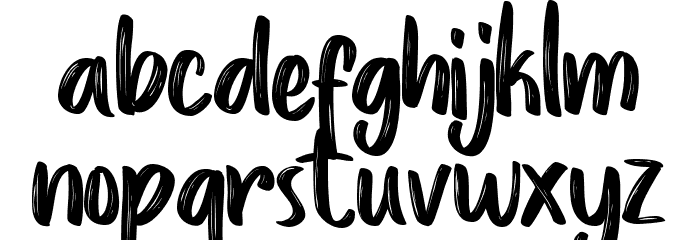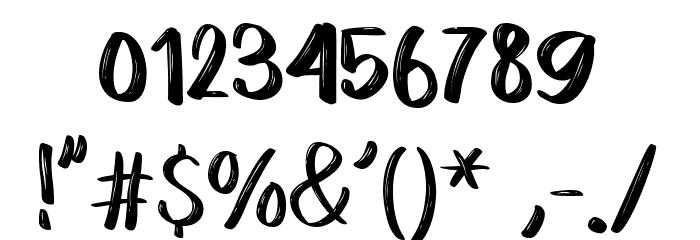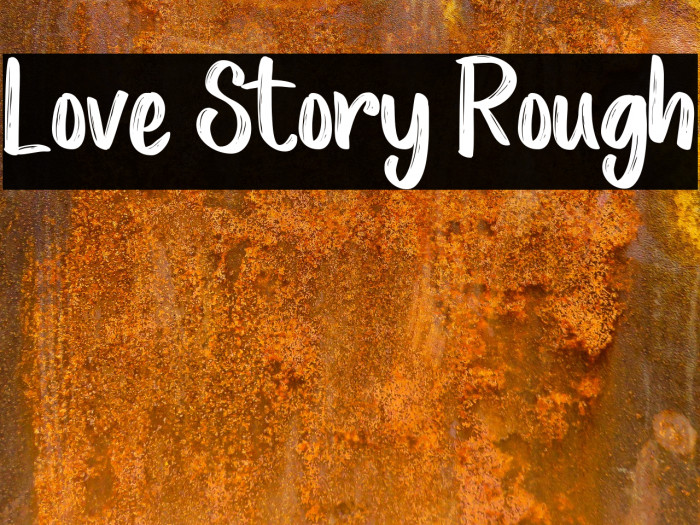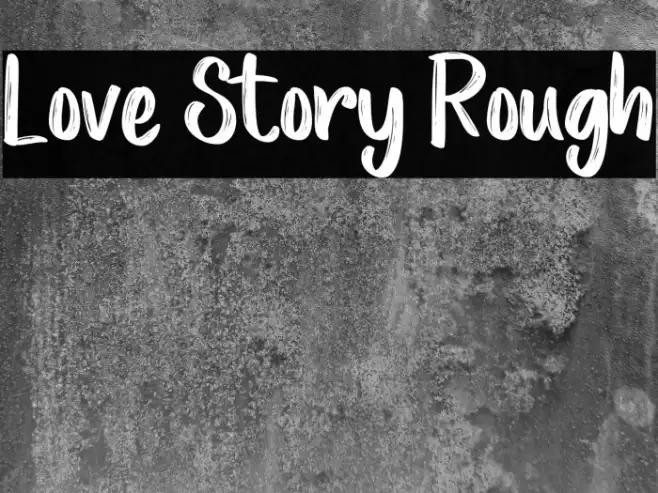
Love Story Rough Font
This font features a bold, brush-like style with a hand-drawn appearance. The characters are slightly irregular, giving it a playful and artistic feel. The strokes are thick and have a rough texture, adding to its casual and informal vibe. The uppercase and lowercase letters are well-balanced, and the numbers and special characters maintain the same energetic style. This font is ideal for projects that require a personal touch or a creative flair.
A bold, brush-style font with a hand-drawn, artistic appearance.
- Proposed Projects: Great for greeting cards, posters, artistic branding, and social media graphics.